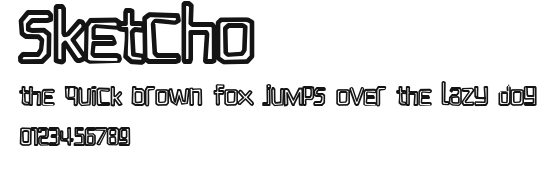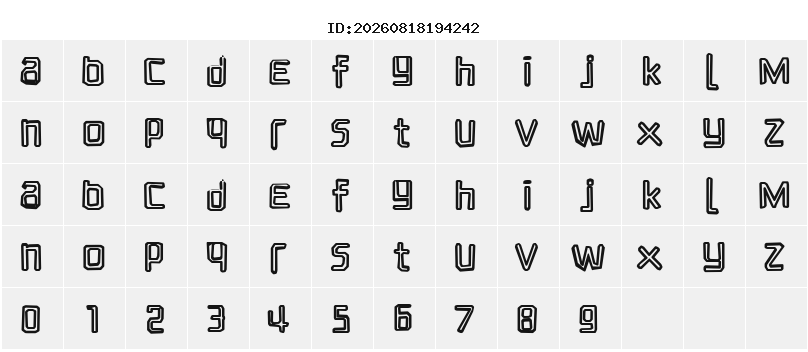
Sketcho Preview
• Font Name: Sketcho
• Full Font Name: Sketcho Baseline
• PostScript Name: Sketcho-Baseline
About Sketcho.ttf
Sketcho.ttf is a modern, elegant sans-serif font designed for ultimate readability and visual harmony. Perfect for branding, headlines, web design, and print materials.